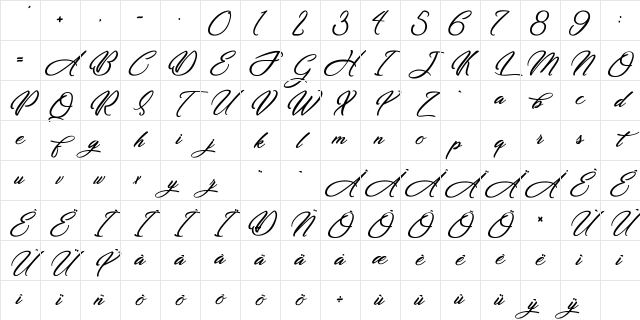
Dirty Bitch Regular
Foundry: Octotype
Designer: Octotype
Complete Dirty Bitch Regular glyph index. Displaying only characters natively supported by Dirty Bitch Regular font.
Design Context for Dirty Bitch
Dirty Bitch is a composed and adaptable typeface that performs quietly and consistently across a wide range of design contexts.